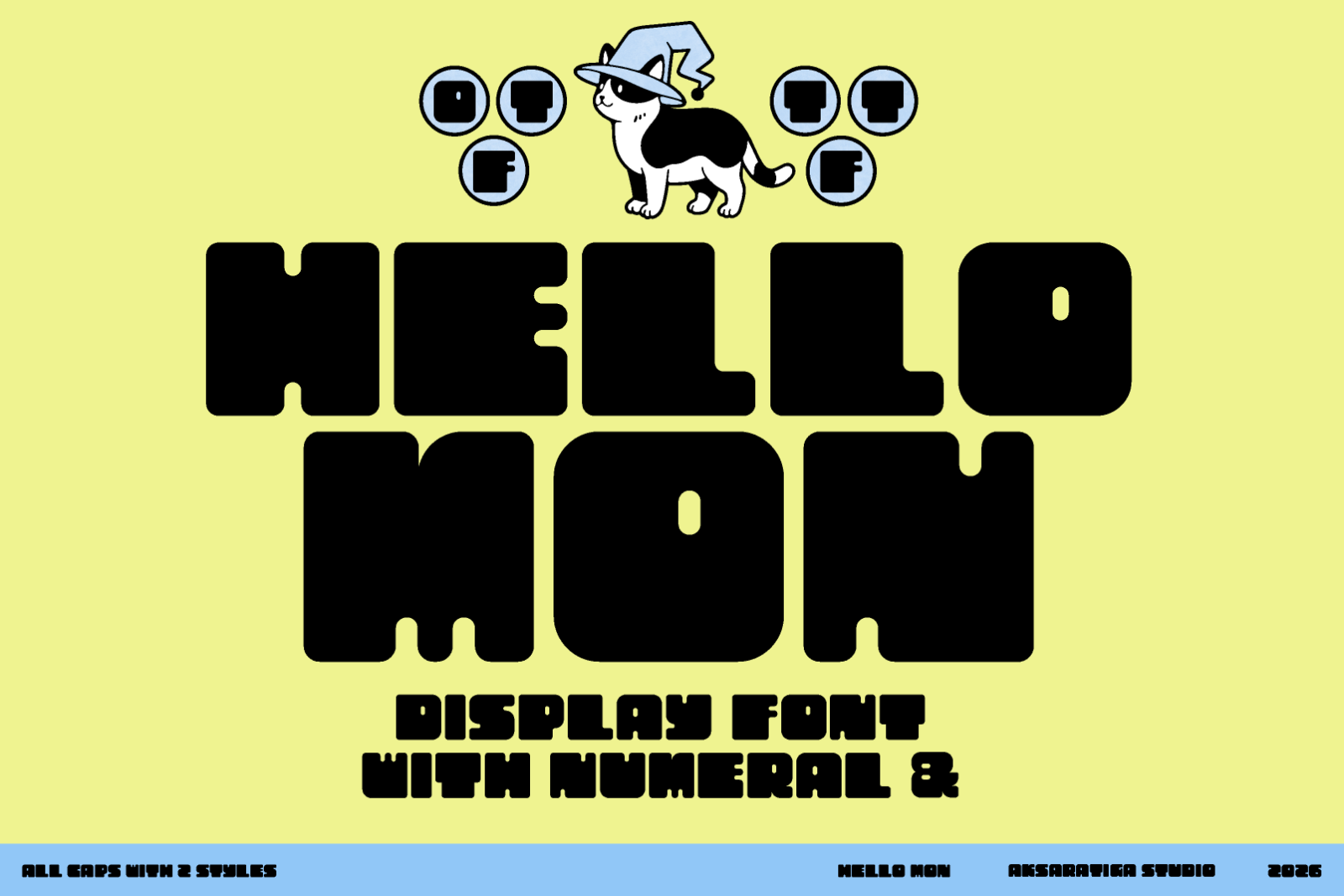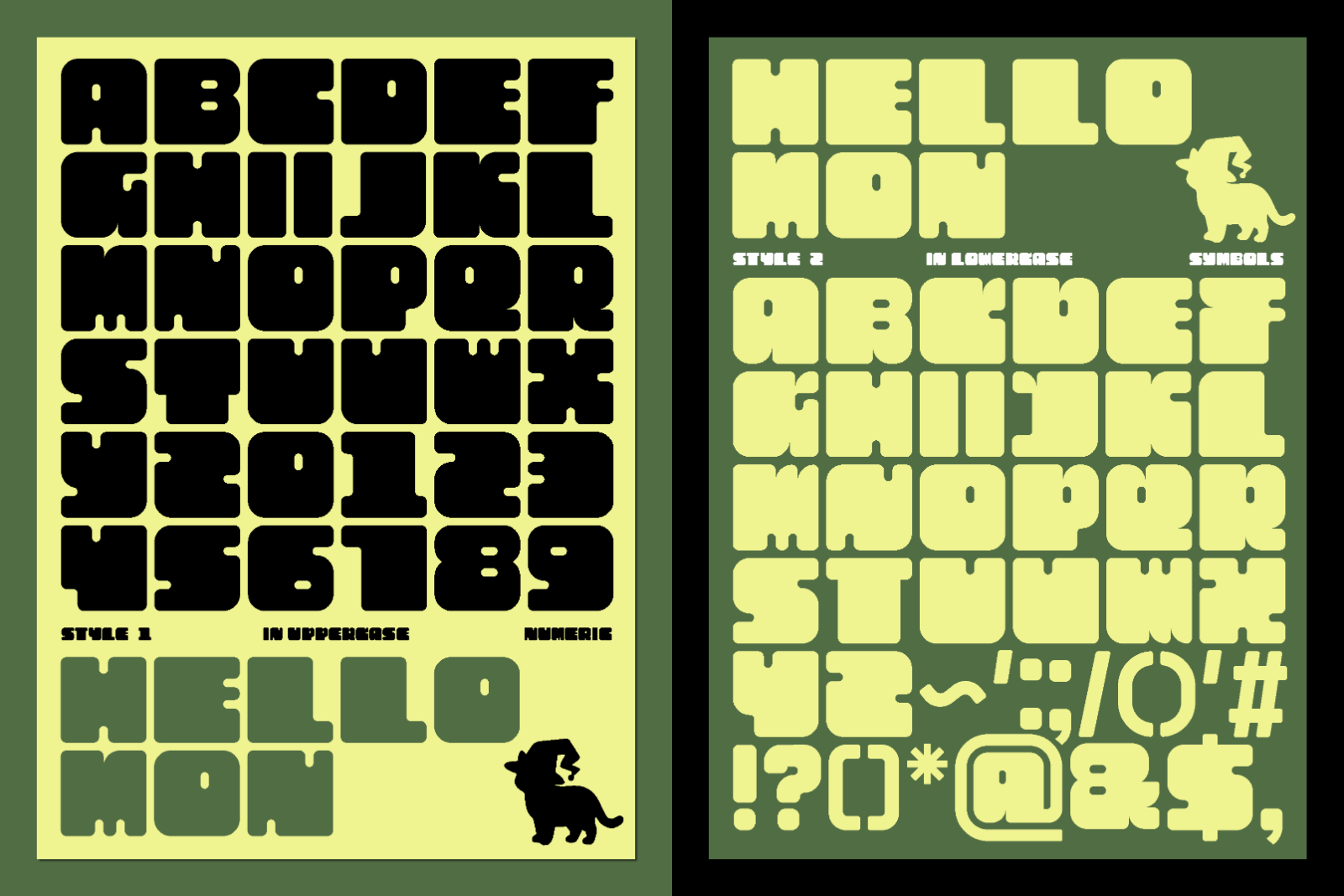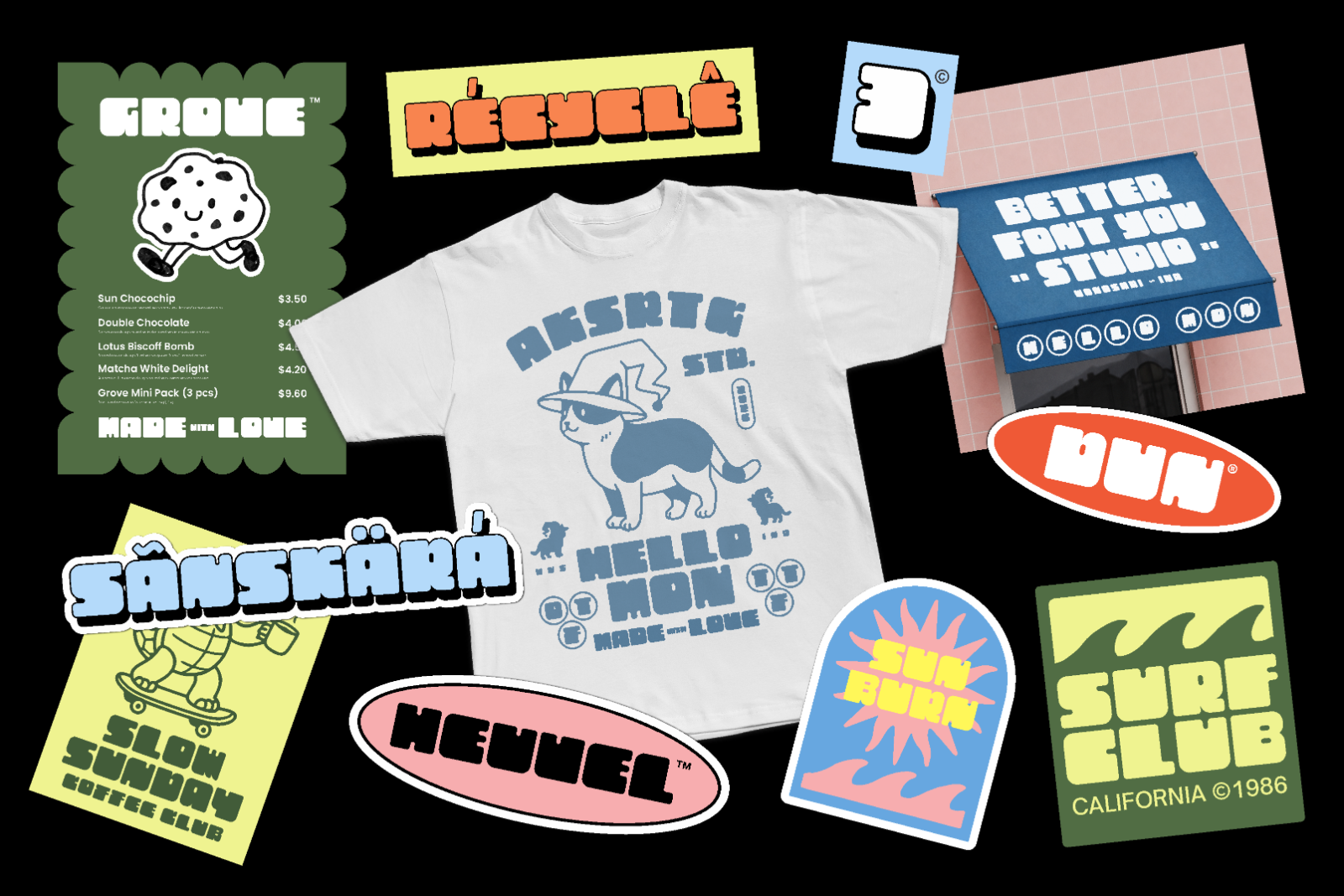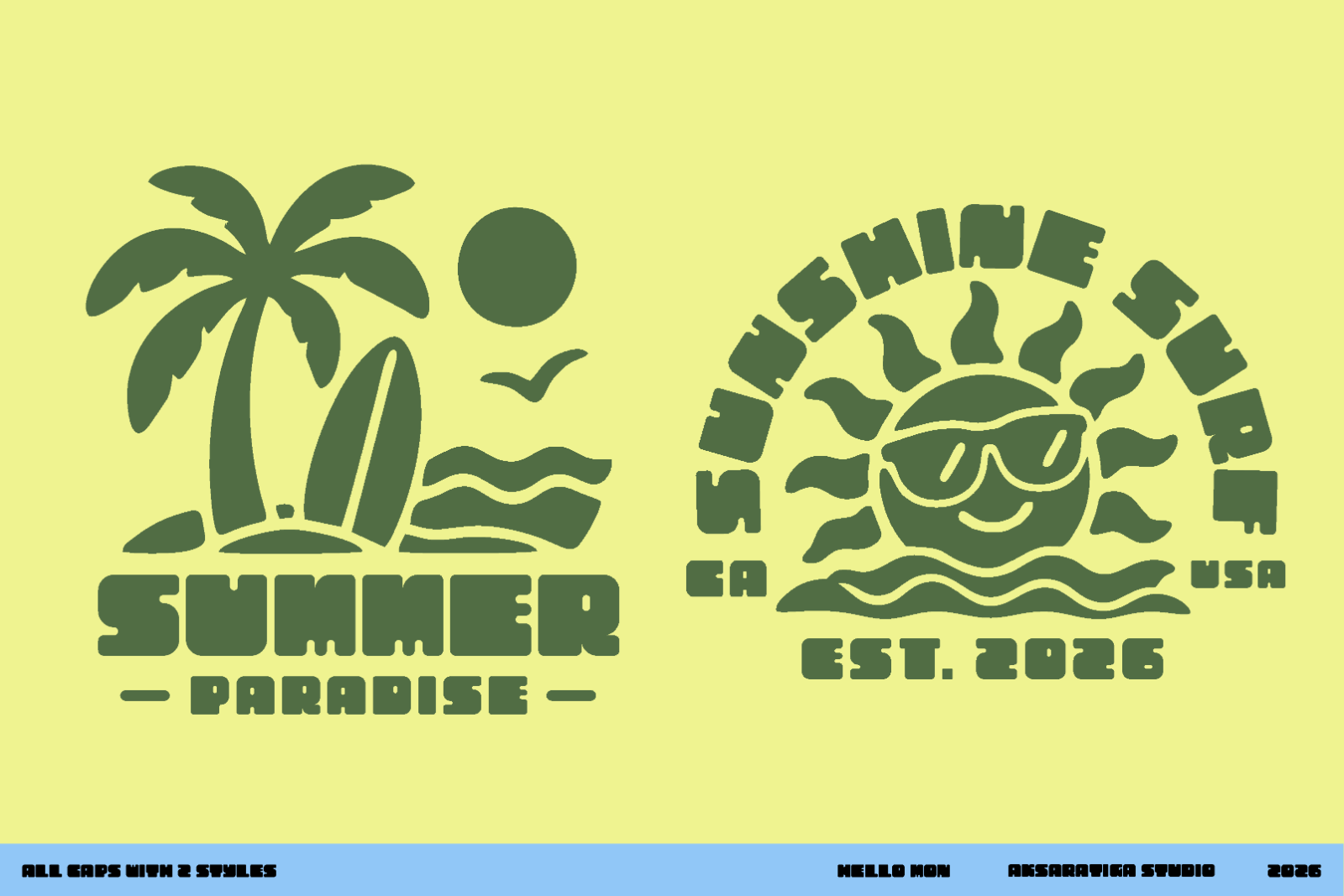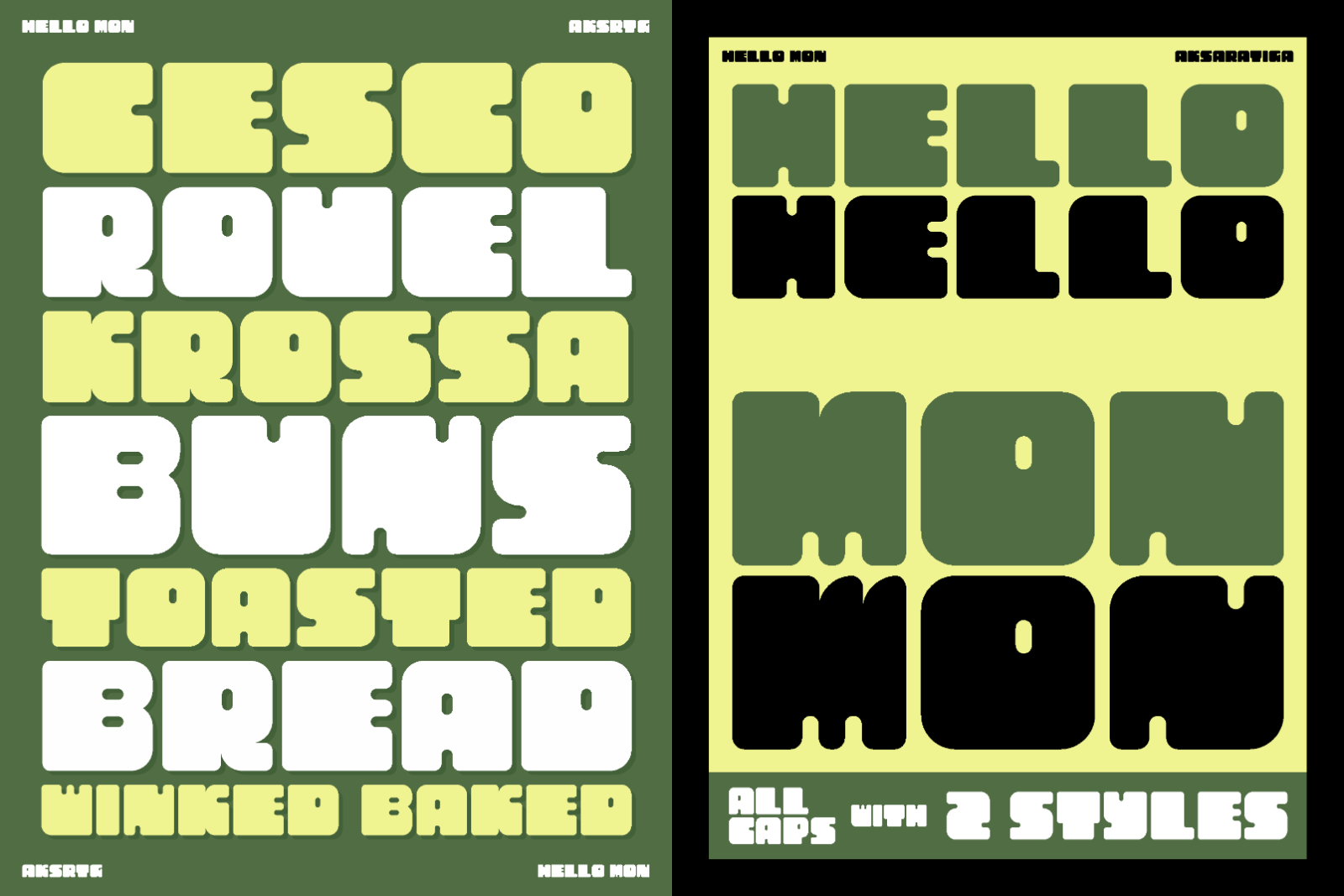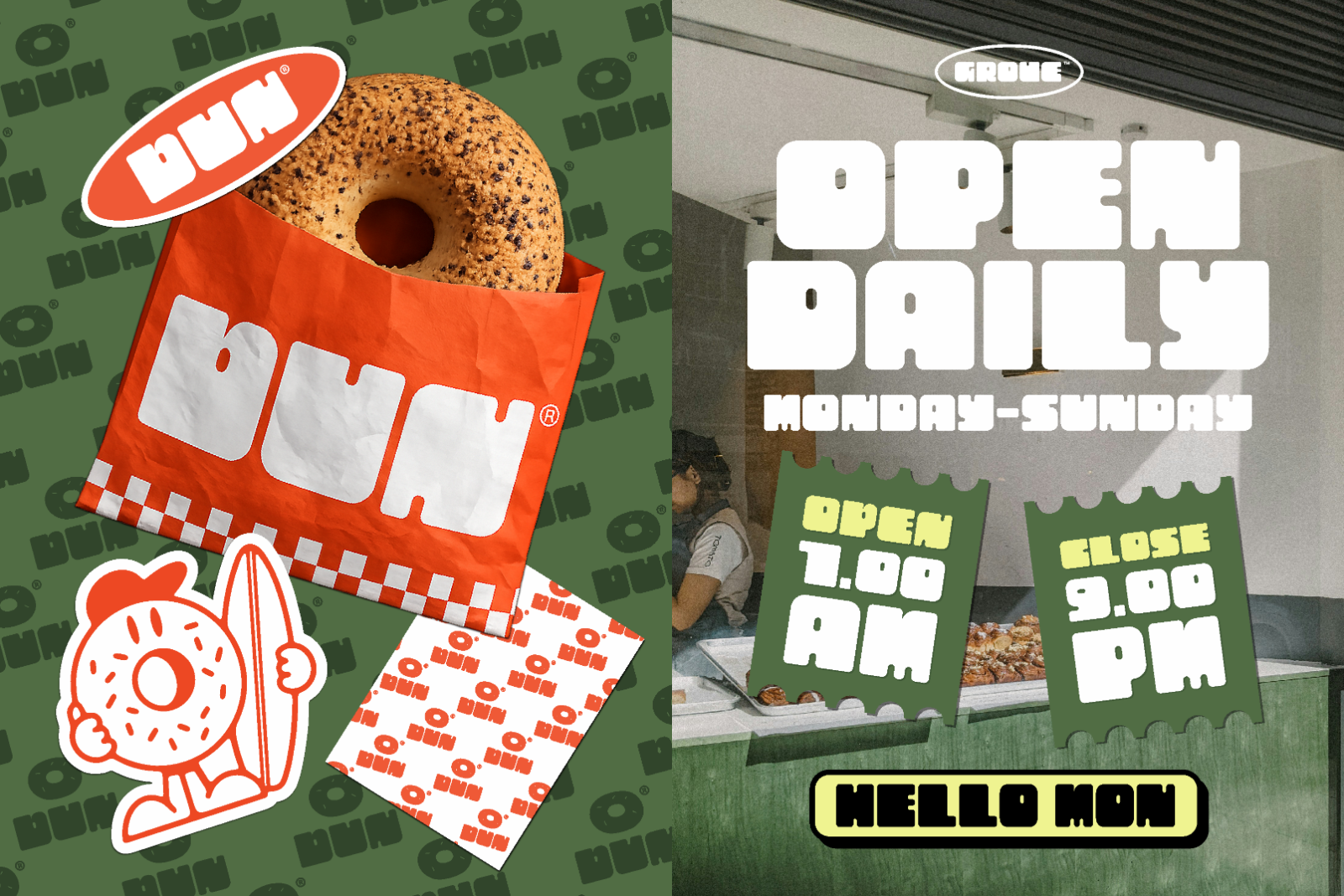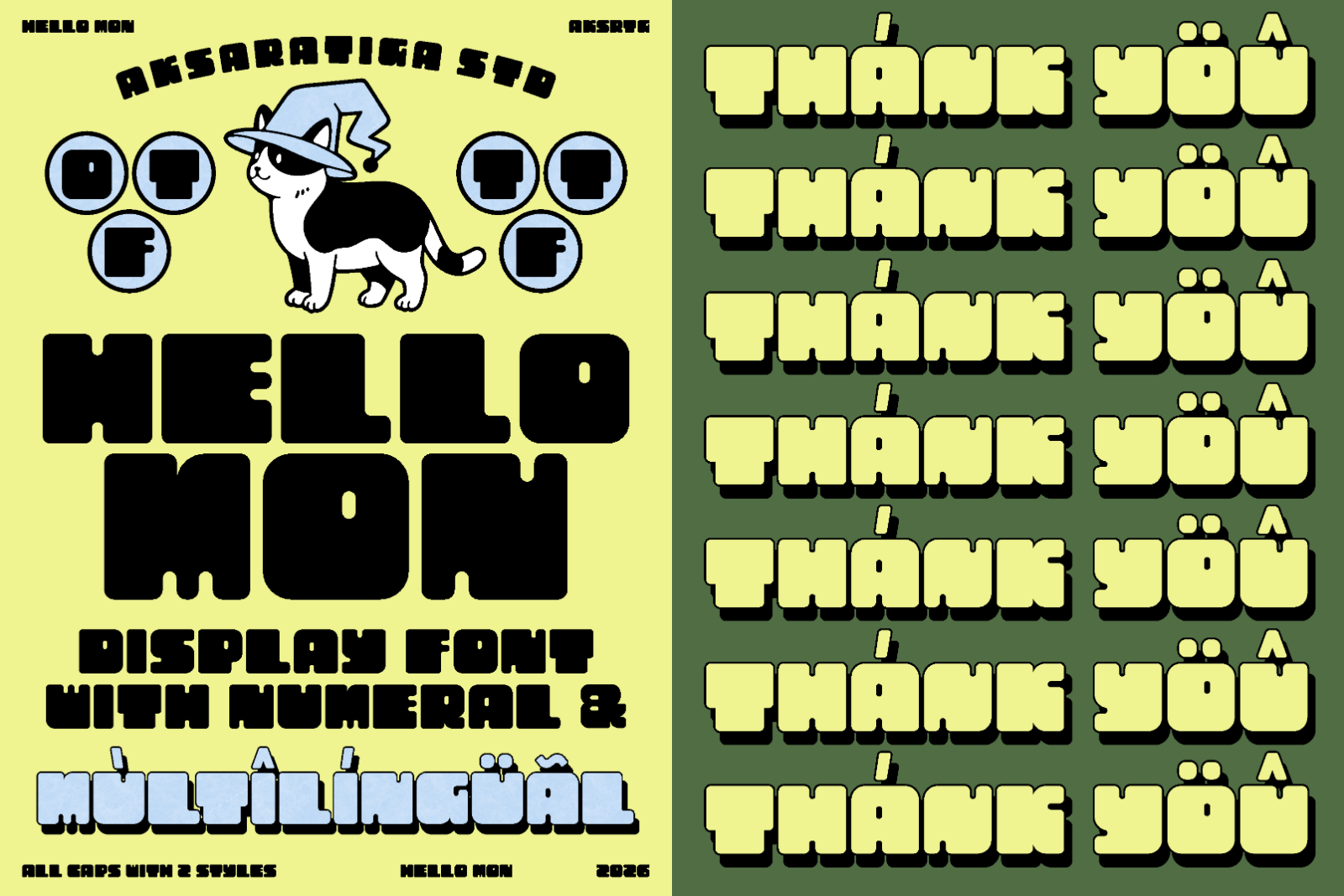
Hello Mon is a bold playful display font by Aksaratiga Studio, inspired by retro cartoons, vintage toy packaging, and nostalgic pop culture. With chunky, rounded letterforms and a cheerful personality, it creates bold headlines and memorable branding with ease.
Whether you're designing logos, packaging, merchandise, posters, social media graphics, or playful branding, Hello Mon delivers a fun and distinctive look that instantly grabs attention. The family includes two styles, along with numerals, punctuation, and multilingual support, making it a versatile choice for both personal and commercial projects
• Uppercase
• Lowercase
• Numeral
• Symbols